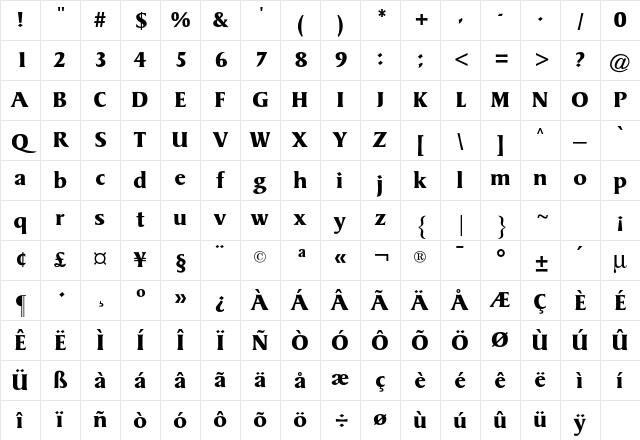
Signature CG Black Regular
Foundry: Miles Inc
Complete Signature CG Black Regular glyph index. Displaying only characters natively supported by Signature CG Black Regular font.
Design Context for Signature CG Black
Signature CG Black is a composed and adaptable typeface that performs quietly and consistently across a wide range of design contexts.